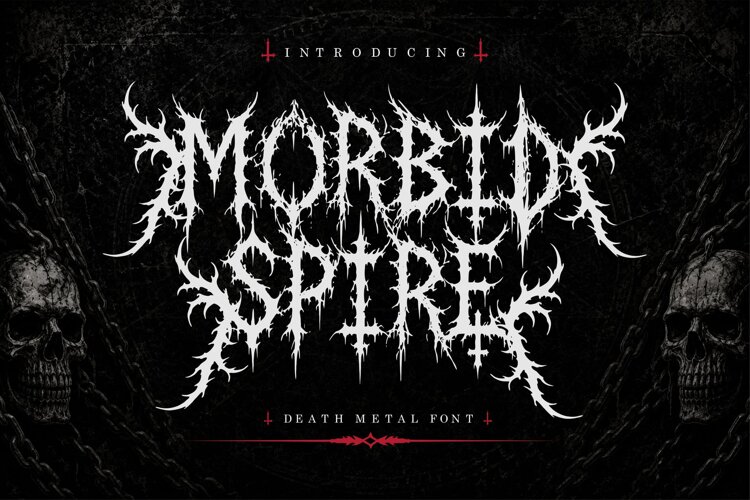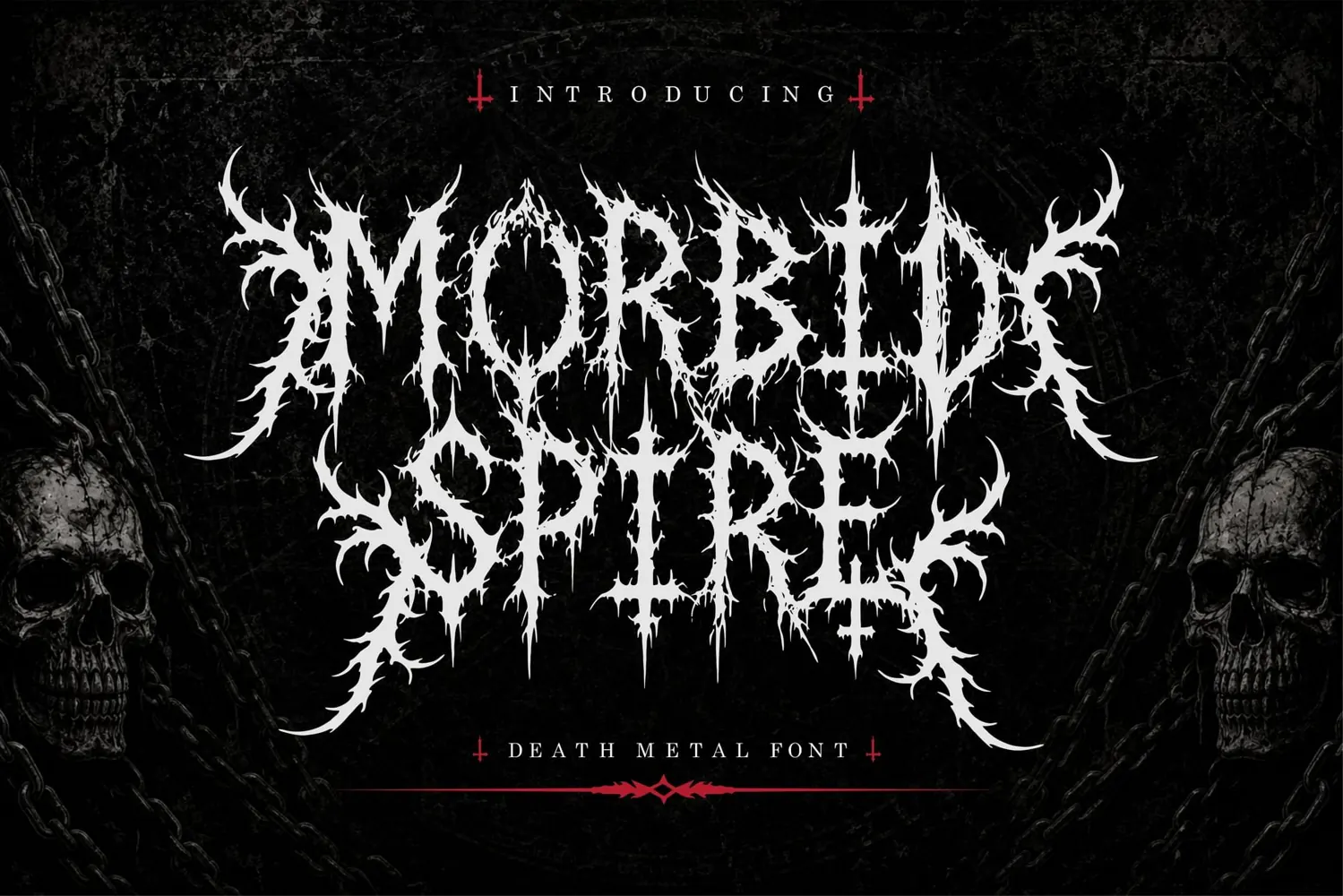
Introduce a brutal, aggressive, and razor-sharp death metal font designed to give your extreme music branding, band logos, and dark merchandise an authentic underground aesthetic. This menacing display typeface is ideal for heavy metal album covers, gig posters, horror movie titles, dark apparel, skateboard graphics, and edgy streetwear designs.